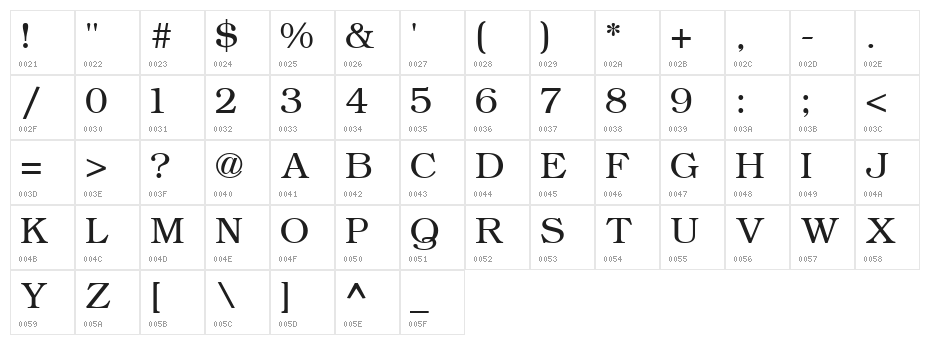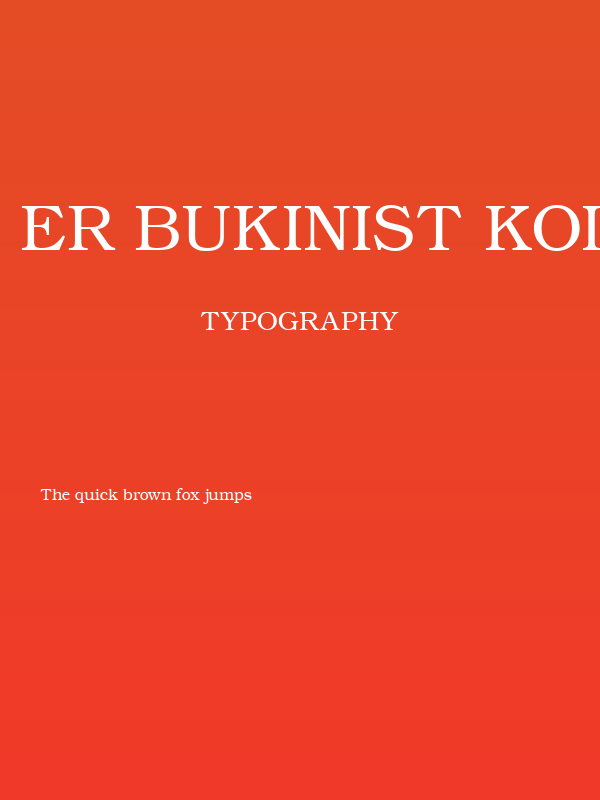
ER Bukinist KOI-8 Font
ER Bukinist KOI-8 Description
This font exhibits a classic serif style with a strong presence and elegant curves. The serifs are pronounced, providing a traditional and authoritative feel. The uppercase letters are bold and commanding, while the lowercase letters maintain a consistent flow with slightly rounded edges. The numerals are clear and distinct, making them easily readable. Special characters are well-integrated, maintaining the overall aesthetic of the font. The design is suitable for conveying a sense of reliability and professionalism.
| Proposed Projects | Ideal for book covers, editorial design, formal invitations, and branding materials that require a traditional and authoritative look. |